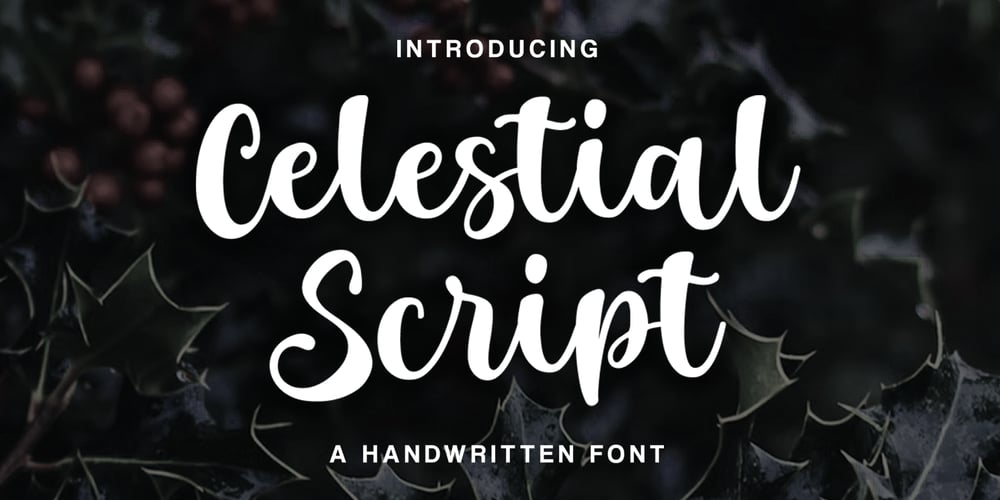
Celestial Script Font Family was designed by khaidir and published by Gatype. Celestial Script contains 1 styles and family package options. Celestial Script modern script style sweet calligraphy, decorative characters and dancing baseline! Very pretty on invitations such as greeting cards, branding materials, business cards, quotes, posters and more. Celestial Script comes with 427 glyphs. Alternate characters are divided into several Open Type features such as, Stylistic Alternates. The Open Type feature can be accessed using Open Type savvy programs such as Adobe Illustrator, Adobe InDesign, Adobe Photoshop version of Corel Draw X, and Microsoft Word. And this Font has provided PUA unicode (custom coded font). so that all alternative characters can be easily accessed in full by a craftsman or designer.Thank you for your purchase!.